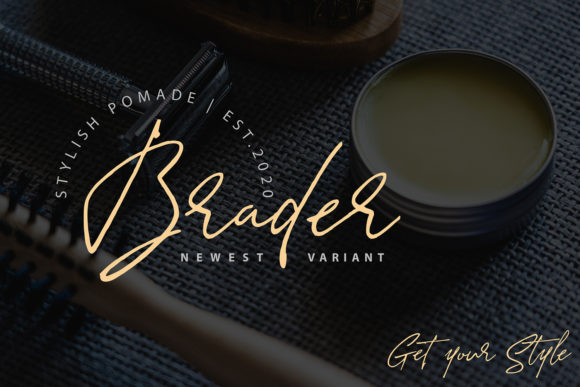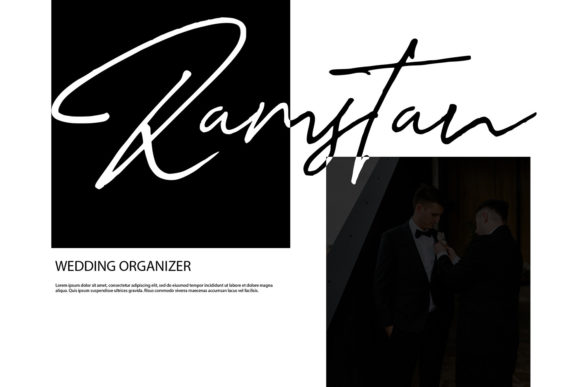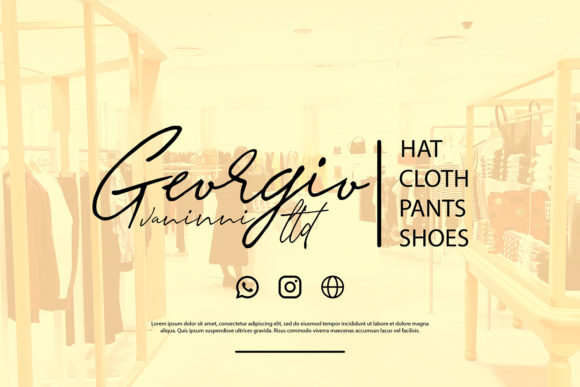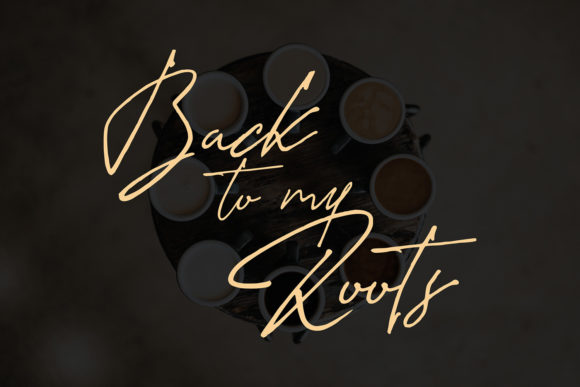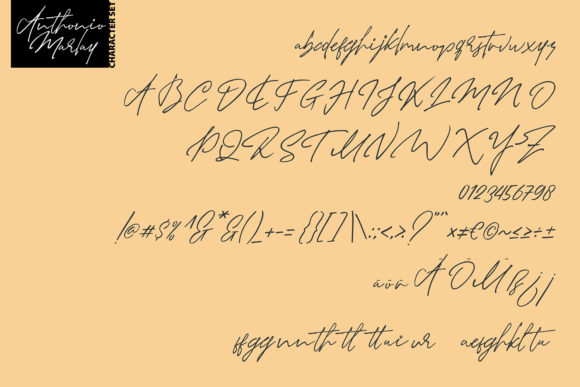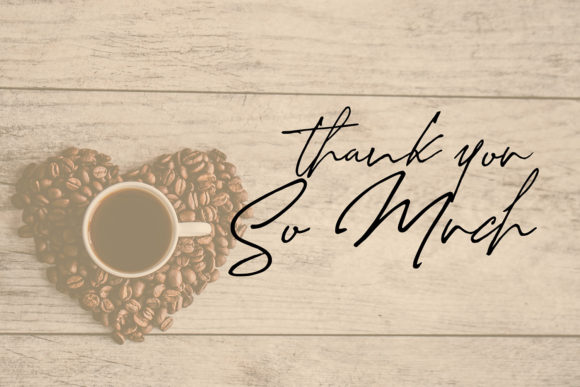
Discover the Timeless Elegance of Anthonio Marlay Font
As a designer, there’s nothing quite like the thrill of bringing a new idea to life. You’ve got a vision, a concept, and a blank canvas – the possibilities are endless. But sometimes, the perfect font can be the missing piece that takes your project from good to great. That’s where Anthonio Marlay Font comes in – a chic, refined script font that exudes sophistication and elegance.
This versatile font is designed to elevate any project, from luxury branding to fine art, and everything in between. With its stylish alternates and ligatures, Anthonio Marlay Font is the perfect match for designers looking to add a touch of refinement to their work. Whether you’re a seasoned pro or just starting out, this font is a valuable addition to your toolkit, offering a level of sophistication and style that’s hard to find elsewhere.
Anthonio Marlay Font Key Features
- Unique Characteristics: This font features a unique blend of modern and vintage elements, with intricate details and ornaments, making it ideal for luxury and high-end designs.
Anthonio Marlay Font Review
At first glance, the Anthonio Marlay Font has some unique characteristics that caught my eye ✨. The elegant script style and subtle flourishes make it perfect for creating a sophisticated and refined look. It’s ideal for use in high-end branding, invitations, or even luxury product labels.
Here are some of the font’s strengths: ✨
- Beautifully crafted script style
- Subtle flourishes add a touch of elegance
- Perfect for high-end branding and luxury designs
However, there are some limitations to consider ⚠️:
- May be difficult to read in small sizes
- Limited character set (not suitable for extensive body text)
- May not be suitable for digital displays (due to intricate details)
Overall, I think the Anthonio Marlay Font is a great choice for designers looking to add a touch of sophistication to their projects. While it may have some limitations, its unique style and elegant feel make it well worth considering. With the right use case and careful design considerations, this font can be a real showstopper.
Use Anthonio Marlay Font for creative projects that require a unique and elegant touch. This font is perfect for:
1. Invitations and event materials.
2. Branding and marketing materials.
3. Creative resumes and portfolios.
4. Book covers and magazine layouts.
Alternatives to Anthonio Marlay Font
Great Vibes Font is a beautiful, elegant script font perfect for adding a touch of sophistication to your designs. It’s ideal for use in invitations, wedding stationery, and other high-end branding materials.
Compared to Anthonio Marlay Font, Great Vibes Font has a more refined and classic look, while Anthonio Marlay Font has a more modern and bold feel. Great Vibes Font is also more versatile and can be used in a wider range of applications.
Carolyna Pro Font is a modern script font that’s perfect for adding a touch of luxury to your designs. It’s ideal for use in high-end branding materials, such as logos, business cards, and marketing materials.
Compared to Anthonio Marlay Font, Carolyna Pro Font has a more polished and refined look, while Anthonio Marlay Font has a more edgy and bold feel. Carolyna Pro Font is also more suitable for corporate and professional branding materials.